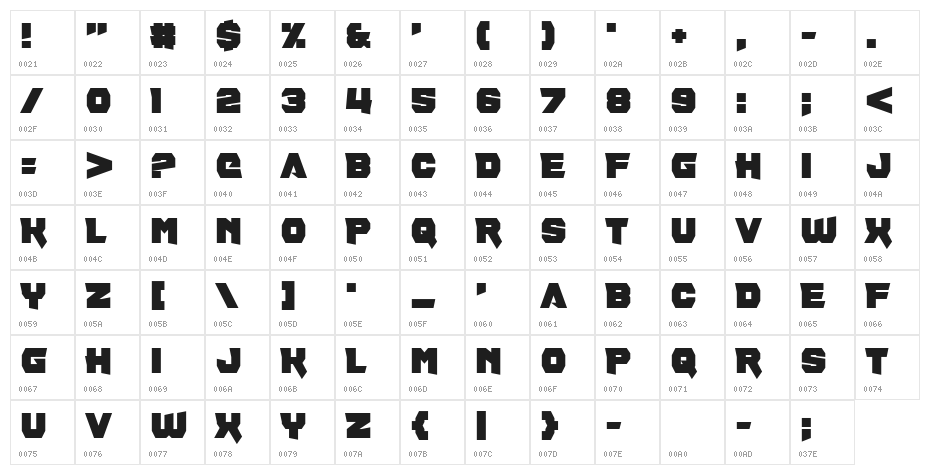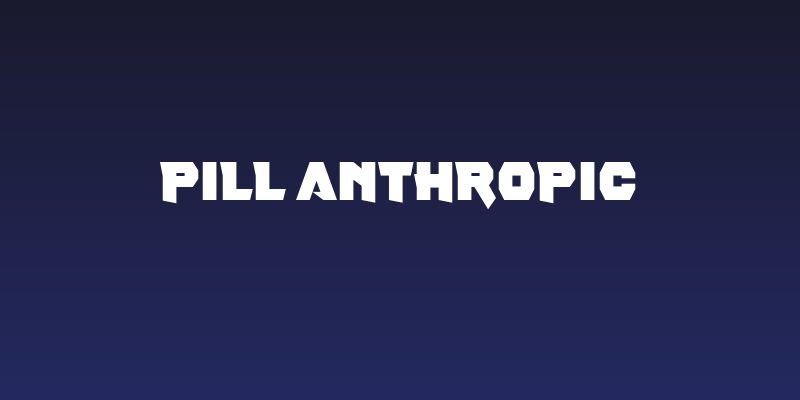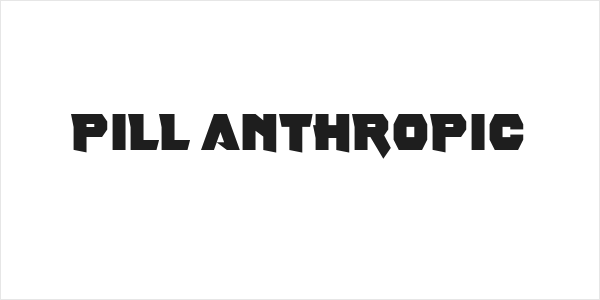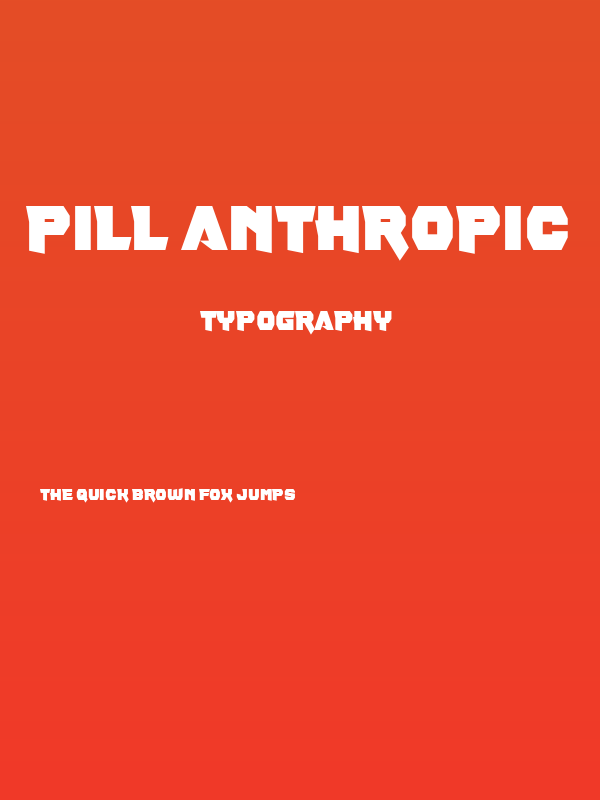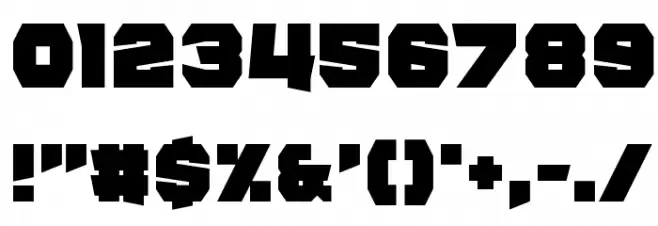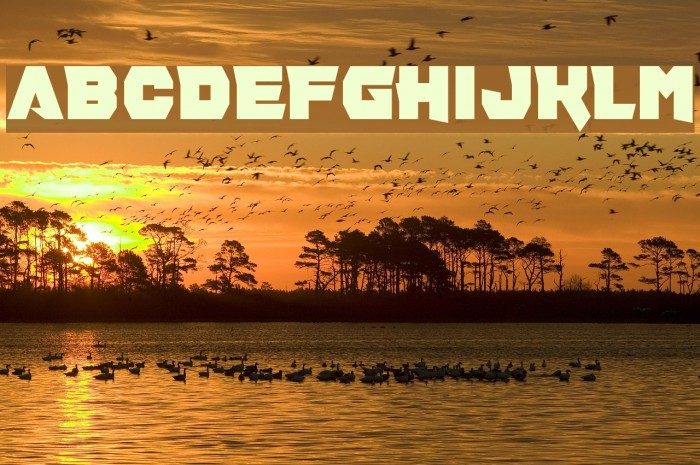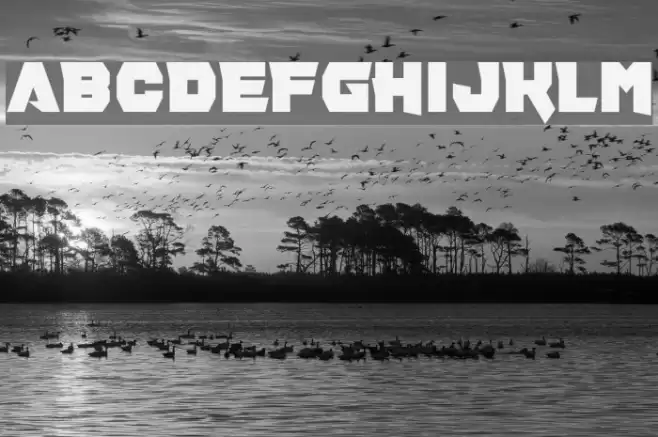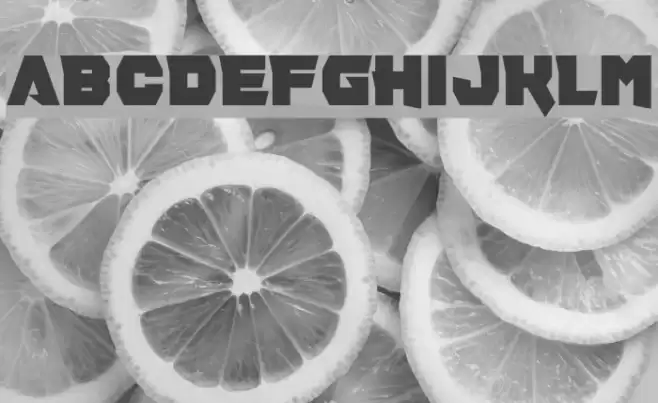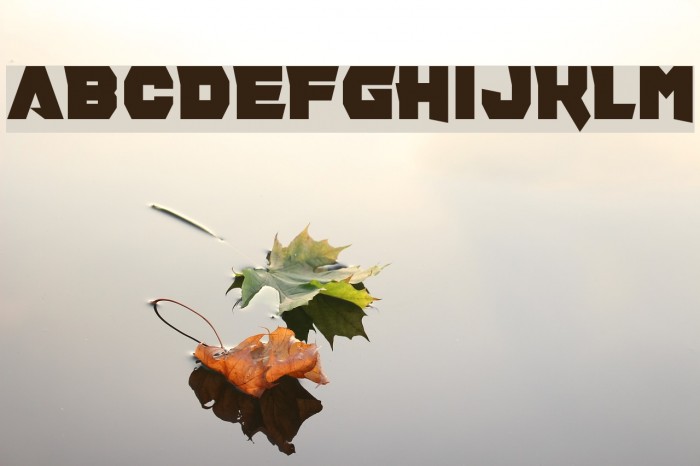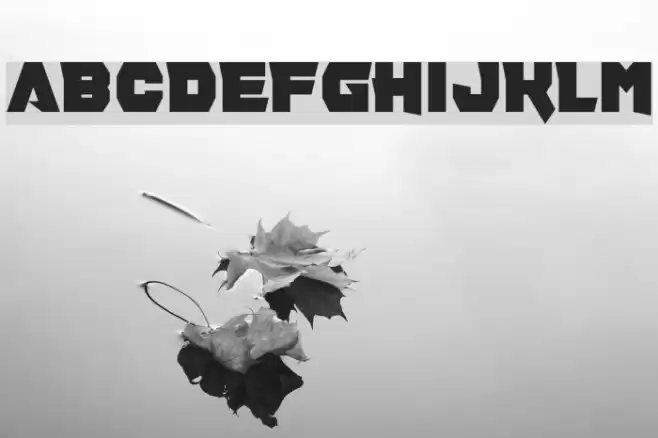
Pill Anthropic Font
Pill Anthropic Description
This font features a bold and angular design, characterized by sharp edges and geometric forms. The uppercase letters are particularly striking, with a blocky, almost futuristic appearance. The numbers and special characters maintain this bold style, ensuring consistency across all glyphs. The font's strong visual impact makes it ideal for attention-grabbing designs. Its unique style is reminiscent of digital or sci-fi themes, making it suitable for modern and edgy projects.
| Proposed Projects | Ideal for sci-fi themed posters, video game titles, branding for tech companies, and any project requiring a modern, edgy look. |